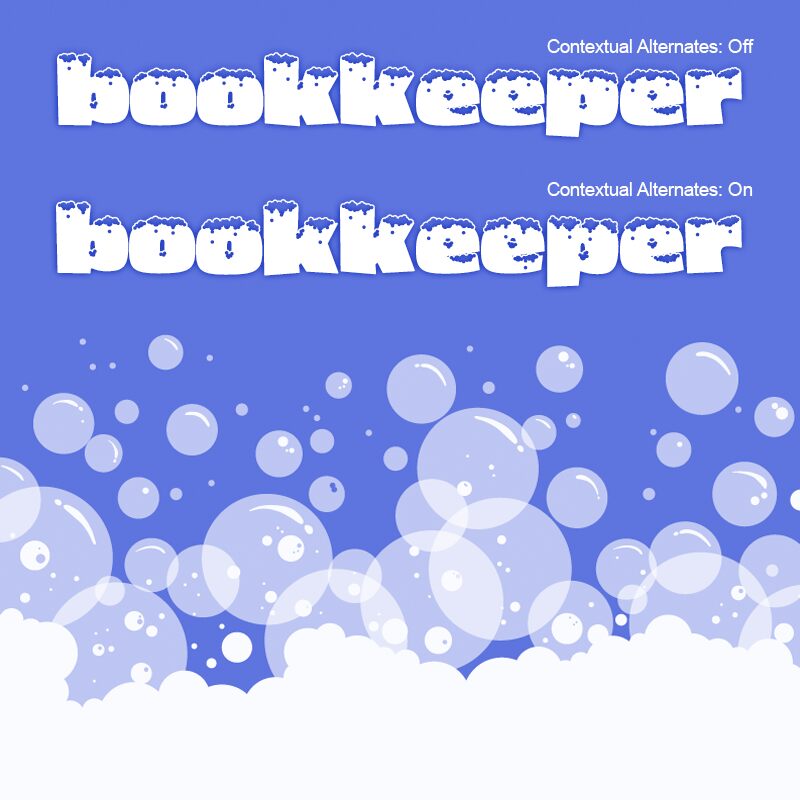
Sudzsy font is a bold decorative typeface designed by TracerTong Fontworks.
The full version has the following OpenType Features:
- Contextual alternates*
- Accented characters
- Fractions
- Ligatures / Discretionary ligatures
* If you're unfamiliar with contextual alternates, they make the typed word look a little more organic with letters substituted for alternates. For example, typing two of the same letter/number will produce different versions of that letter glyph.